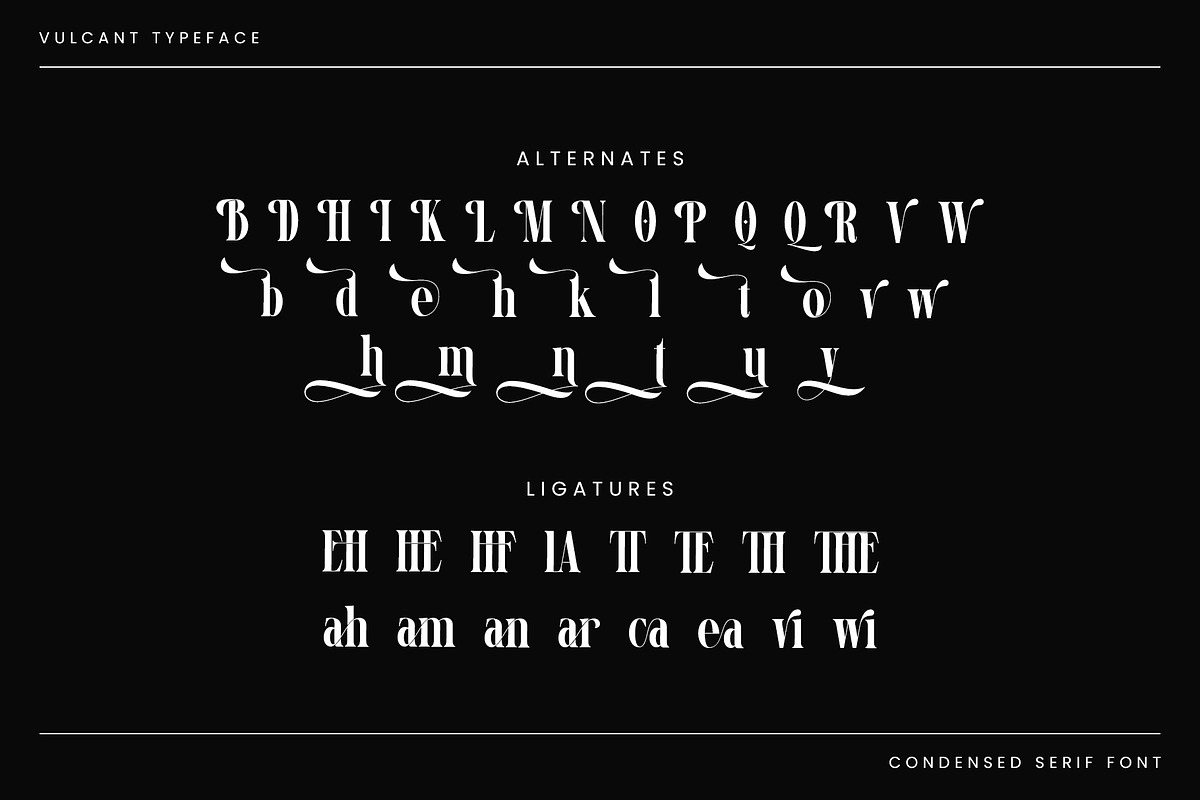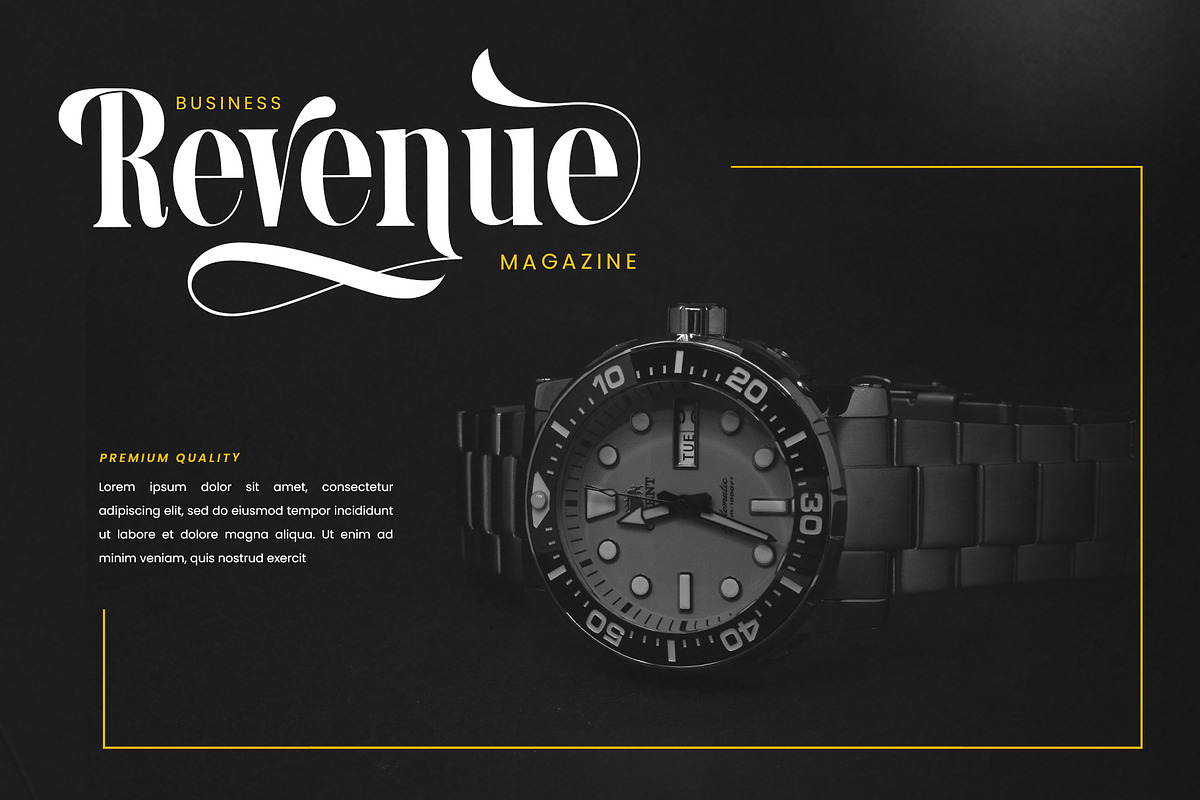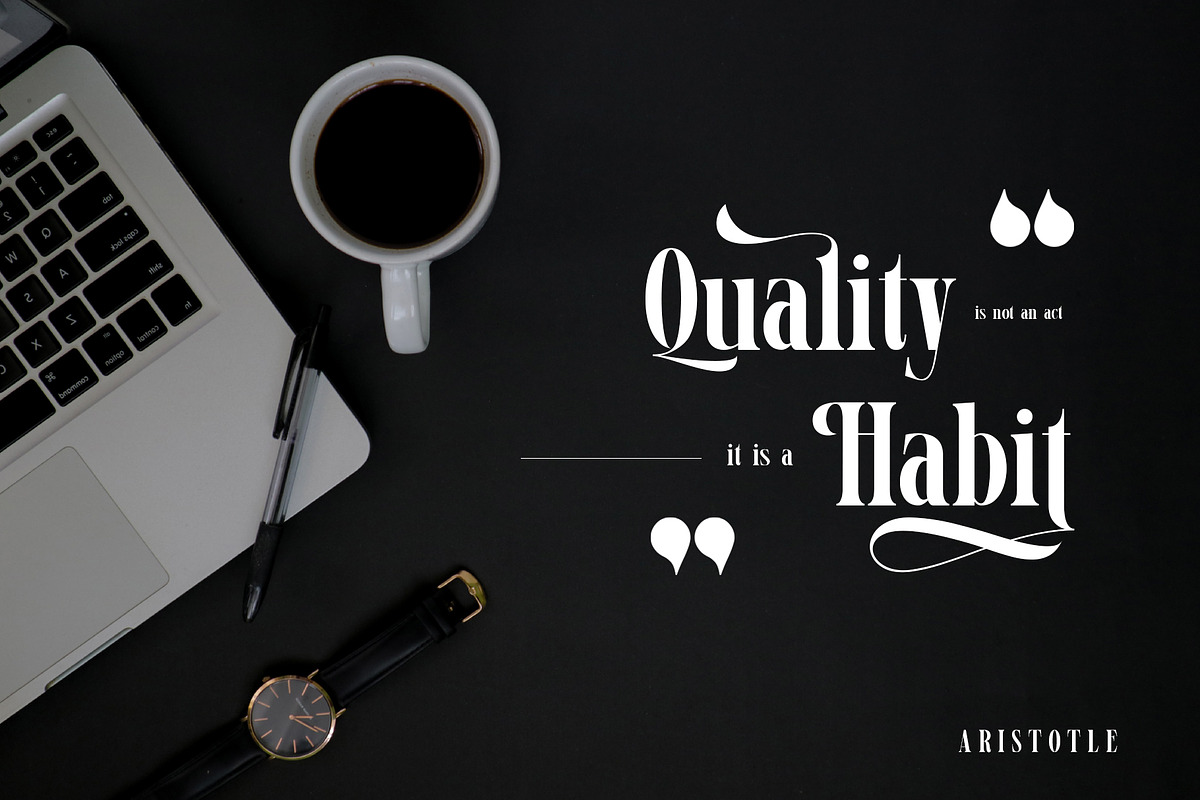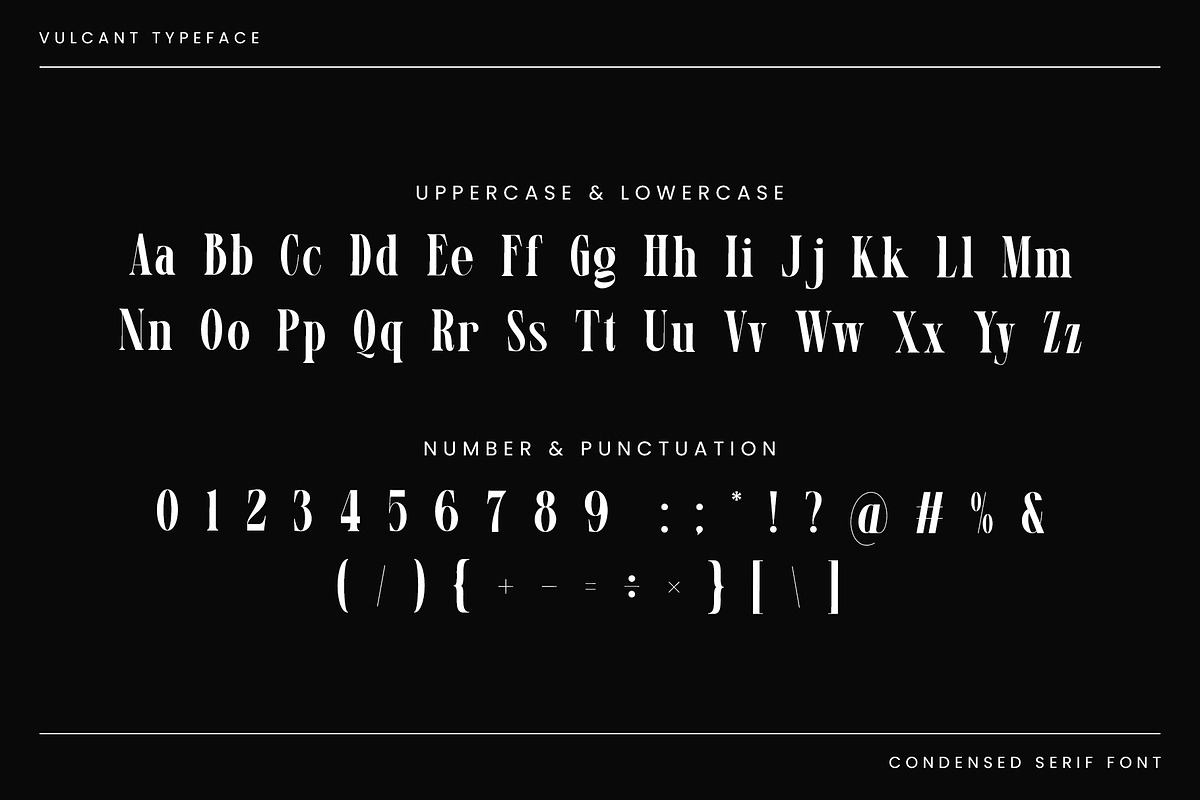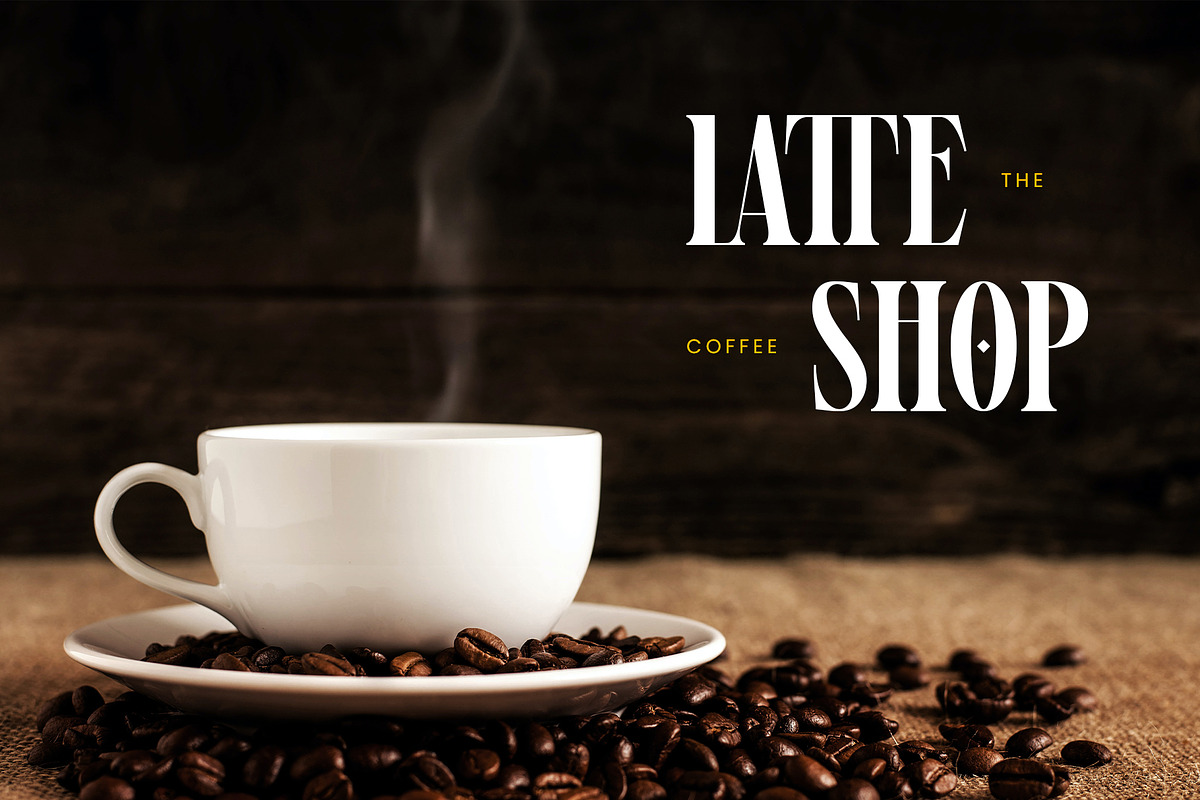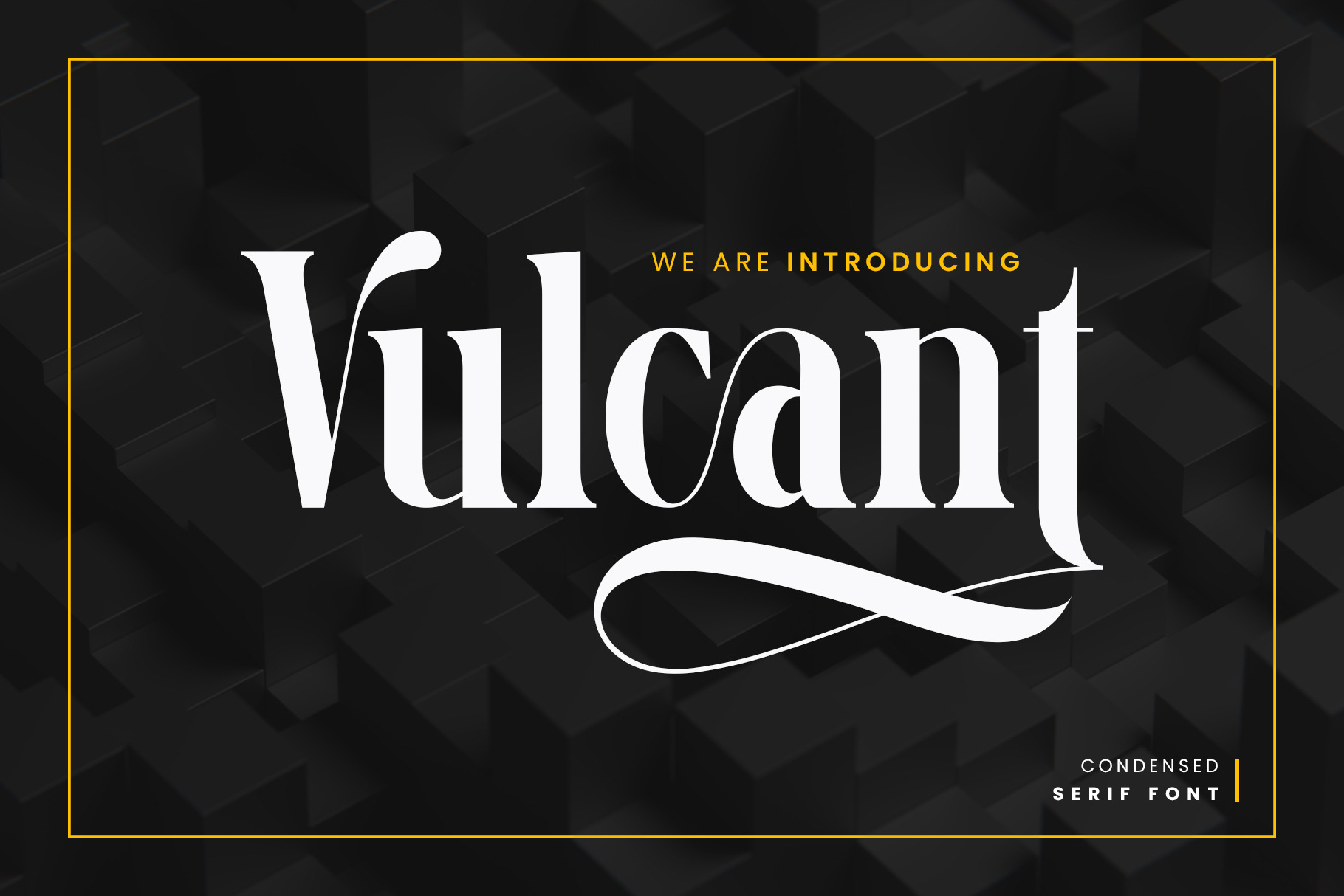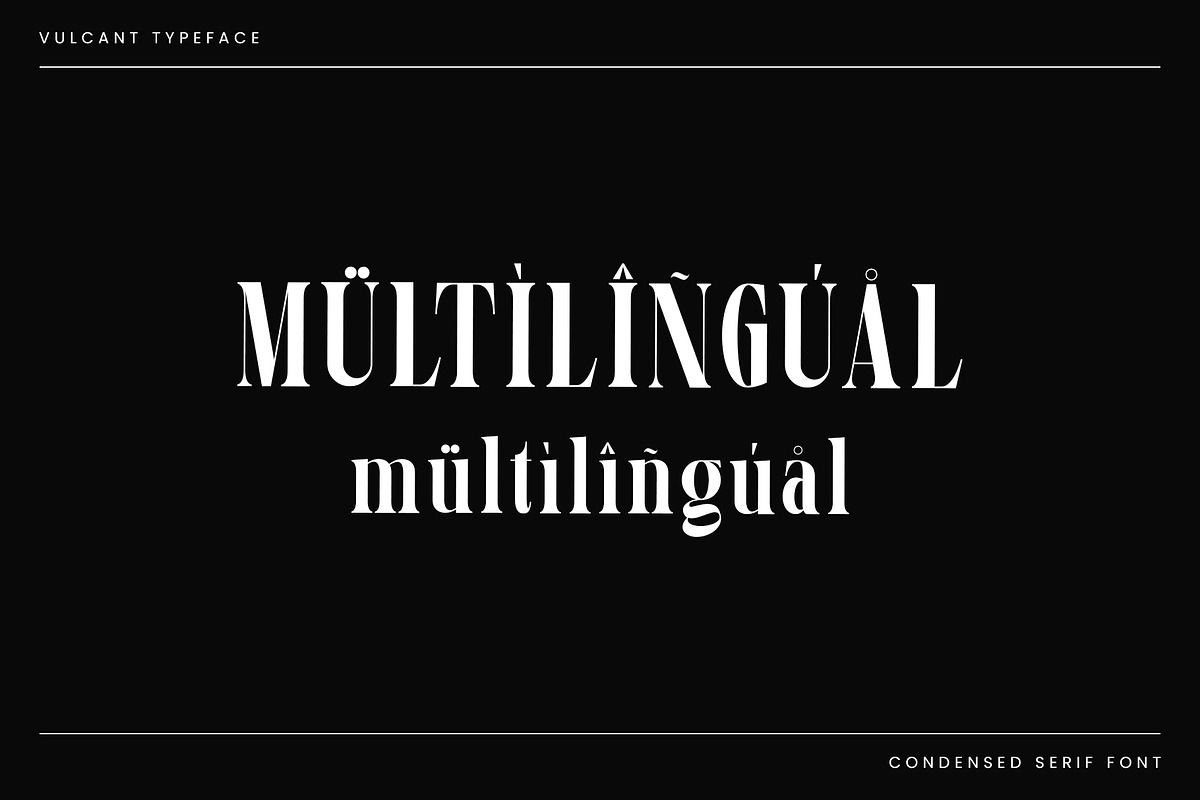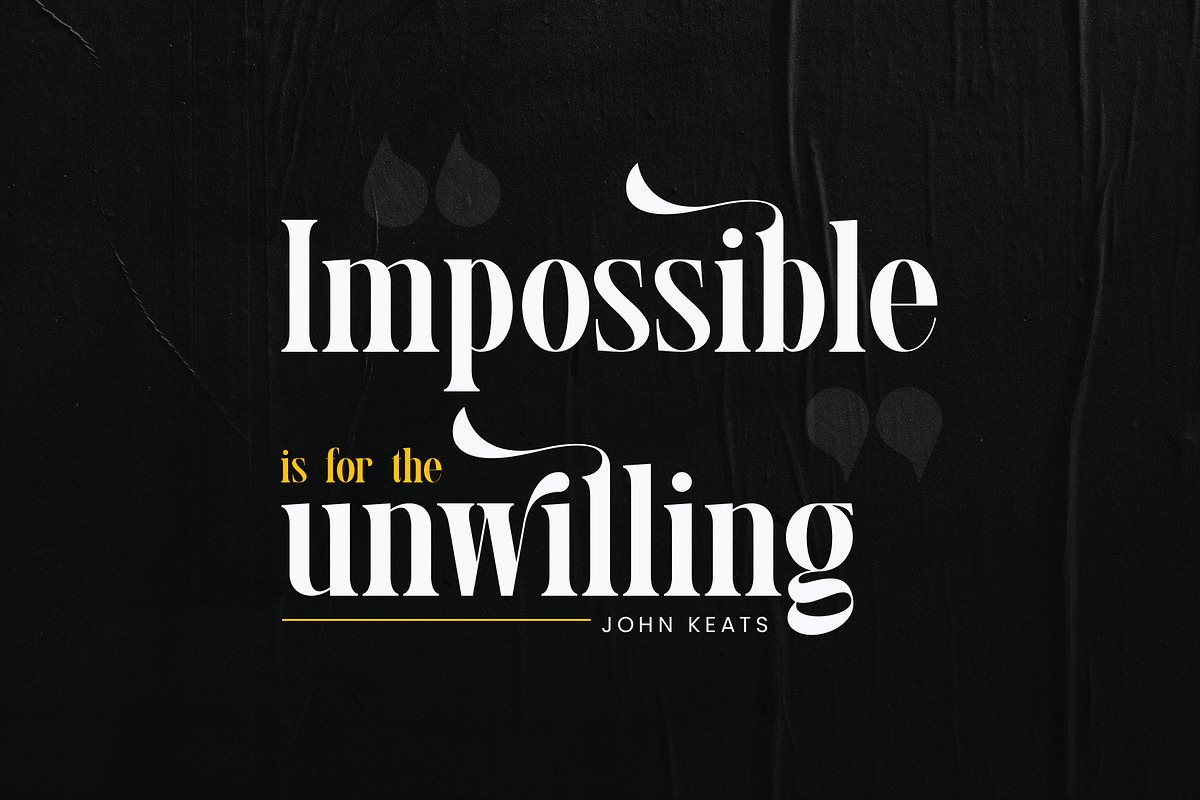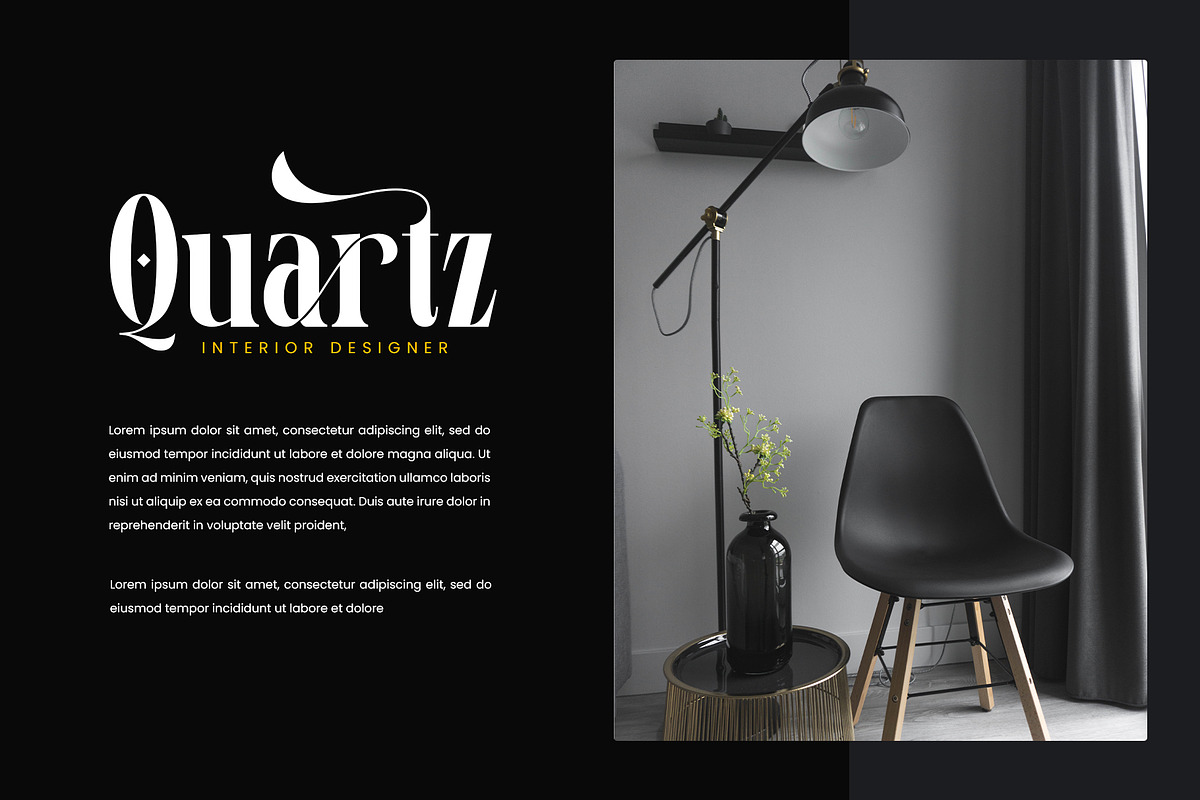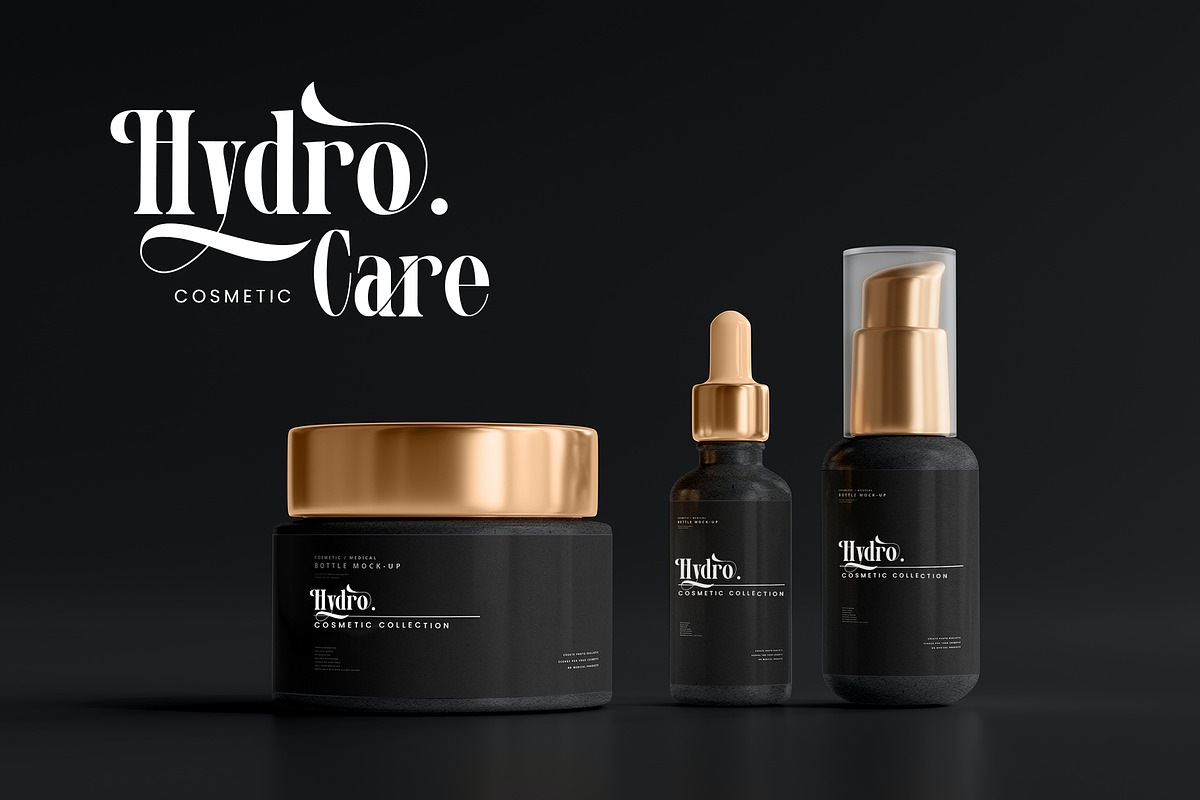
Vulcant Condensed Serif Font
Vulcant condensed serif is a balanced, smooth, elegant and stylish serif font. He has a beautiful character. It fits perfectly with invitation card designs, company logos, movie titles, movie names, business cards, book titles, brand names and various other designs. Vulcant is a condensed serif is a subtle serif font that exudes sophistication and elegance. Its stylish alternations and ligatures make this font the perfect partner for any project.